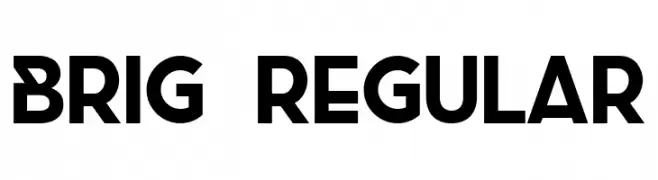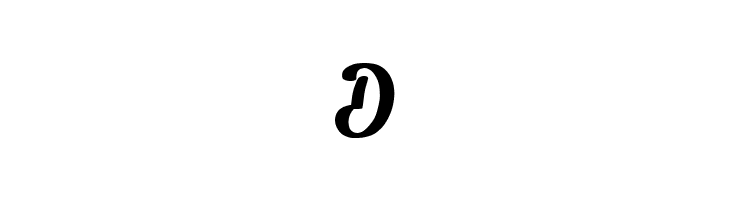
• Brifa Thin Personal
A sleek, modern font with clean lines and a minimalistic design.
• Brifuqa
A bold, expressive script font with dynamic, flowing curves.
• Brig Maven
A bold serif font with classic, authoritative characteristics.
• Brig Regular
A bold, geometric font with modern, assertive letterforms.
• BRIGADA RAMONA PARRA
A bold, expressive font featuring intricate pictorial symbols with artistic flair.
• Brigada Salvaje
A bold, distressed font with a rugged, vintage feel.
• brigade army
A bold, slanted font with sharp angles and a modern, dynamic style.
• Brigade Army Bold
A bold, slanted font with a modern, geometric style.
• Brigade Army-Hollow
A hollow, stencil-like font with a modern, structured design.